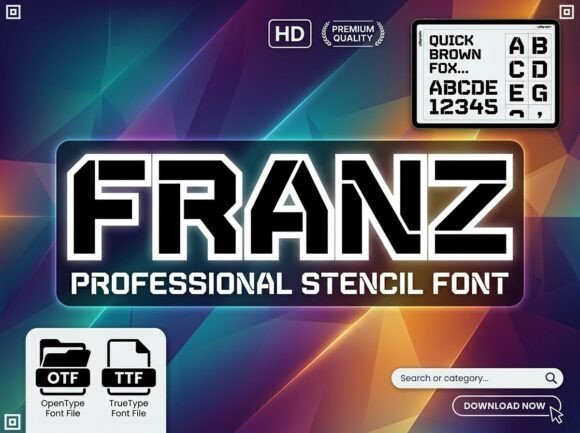
Unlocking the Power of Industrial Design
As designers, we’ve all been there – staring at a blank canvas, desperate for the perfect font to elevate our latest project. It’s that moment when the perfect typography can make all the difference between a good design and a great one. And that’s exactly where Franz Font comes in – a professional stencil font built for maximum impact and modern durability.
With its massive, geometric letterforms and sharp, technical “notches”, Franz Font is the ultimate choice for designers looking to add a touch of industrial precision to their work. From automotive branding to high-performance tech logos, this font is the perfect tool for creating bold, attention-grabbing designs that leave a lasting impression. Whether you’re a seasoned designer or just starting out, Franz Font is an essential addition to any toolkit.
Franz Font Key Features
- Unique Characteristics: Designed for coding and programming environments, with a focus on readability and clarity, and includes a wide range of programming symbols and glyphs.
Design Review: Franz Font
As a designer, I recently had the chance to work with the Franz Font. Overall, my experience was a mixed bag, but there were some aspects that really stood out to me.
- The Franz Font has a unique and elegant design that adds a touch of sophistication to any project.
- It’s incredibly versatile and can be used for a wide range of applications, from body text to headings.
- The font’s weight and x-height make it highly legible, even at smaller sizes.
- It’s also highly customizable, with a wide range of OpenType features and stylistic sets available.
- One of the main limitations of the Franz Font is its limited language support.
- It’s also a bit on the heavier side, which can make it difficult to use in certain applications where file size is a concern.
- Finally, some users may find the font’s distinctive design to be a bit too unusual or avant-garde.
While the Franz Font has its limitations, I think it’s a great choice for designers who want to add a touch of elegance and sophistication to their projects. With its unique design and high level of customizability, it’s definitely worth considering for your next design project.
Tip: Use Franz Font for creating modern and sleek headings in your designs.
Tip: Use Franz Font for creating custom typography in your graphics and illustrations.
Tip: Use Franz Font for creating professional-looking presentations and documents.
Franz Font is commonly used for:
- Modern and sleek headings
- Custom typography in graphics and illustrations
- Professional-looking presentations and documents
Alternatives to “Franz Font” for Designers
Open Sans is a clean and modern sans-serif font designed by Steve Matteson. It is widely used in digital products and is known for its readability and versatility. Open Sans is a great alternative to Franz Font when you need a clean and neutral font for body text.
Comparison to Franz Font: Open Sans has a similar clean and modern feel to Franz Font, but it is more versatile and has a wider range of weights and styles.
Lato is a sans-serif font designed by Łukasz Dziedzic. It is a highly readable font that works well for both body text and headings. Lato has a slightly more condensed feel than Franz Font, making it a great choice for designs where space is limited.
Comparison to Franz Font: Lato has a similar modern feel to Franz Font, but it is more condensed and has a slightly more geometric feel.
Montserrat is a sans-serif font designed by Julieta Ulanovsky. It is a highly readable font that is inspired by the street signs of Montserrat, a neighborhood in Buenos Aires. Montserrat has a strong, urban feel that makes it a great choice for designs that need a bold and edgy look.
Comparison to Franz Font: Montserrat has a similar modern feel to Franz Font, but it is more condensed and has a stronger, more urban feel.